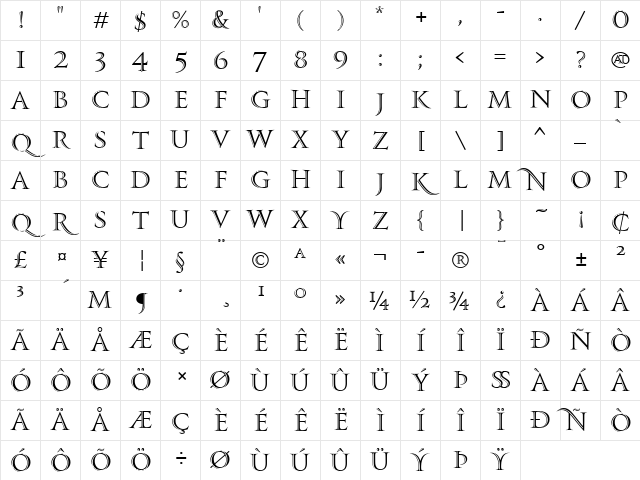
PF Monumenta Pro Shaded
Style: Shaded
Foundry: Parachute￿ Worldwide
Designer: Panos Vassiliou
Design Context for PF Monumenta Pro
PF Monumenta Pro is a composed and adaptable typeface that performs quietly and consistently across a wide range of design contexts.